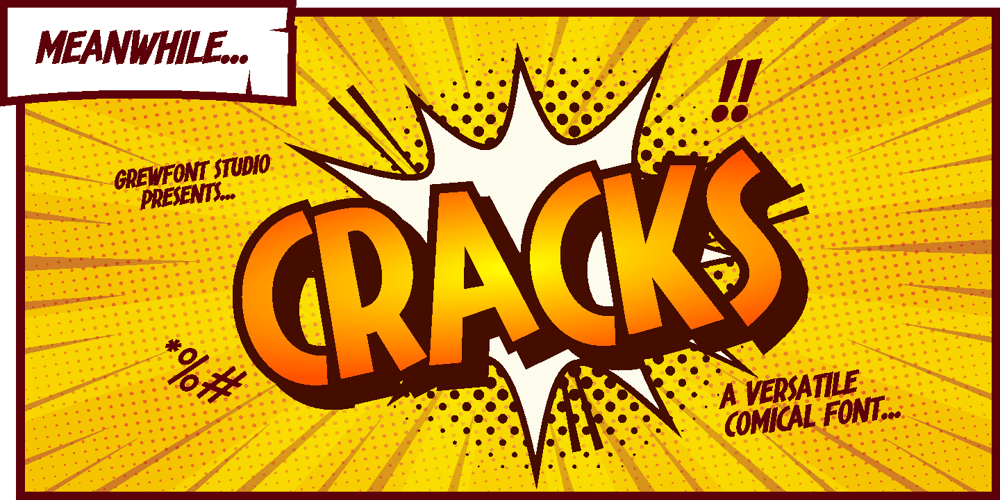
Cracks
Cracks font
Cracks Font Family was designed by Fajrin Ilhamy and published by Grewfont Studio. Cracks contains 1 styles and family package options. Cracks is a display font inspired for fun image and playful taste. Although initially made for comical use, this fantastic typeface is also best suited for headlines of all sizes, as well as for blocks of text that have both maximum and minimum variations. Whether it’s for web, digital crafts, logotype, wordmark, print, moving images or anything else, it fits for every young and playful design.